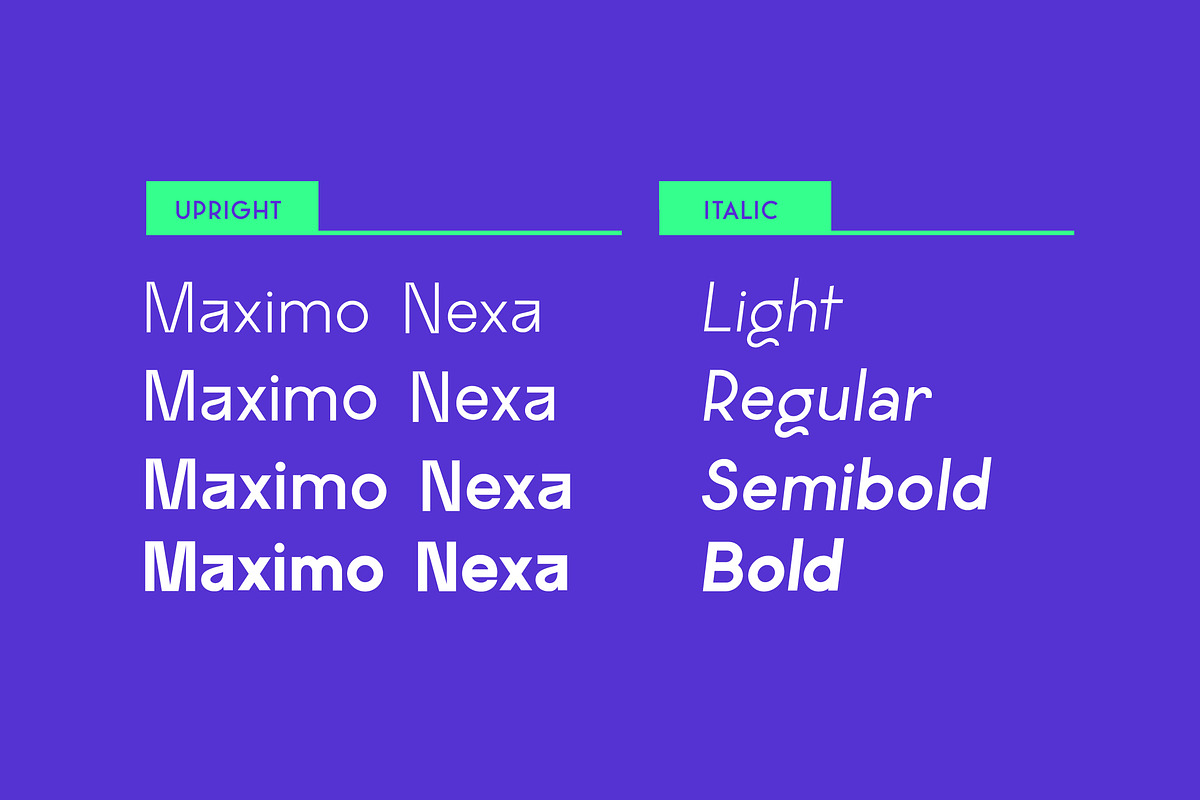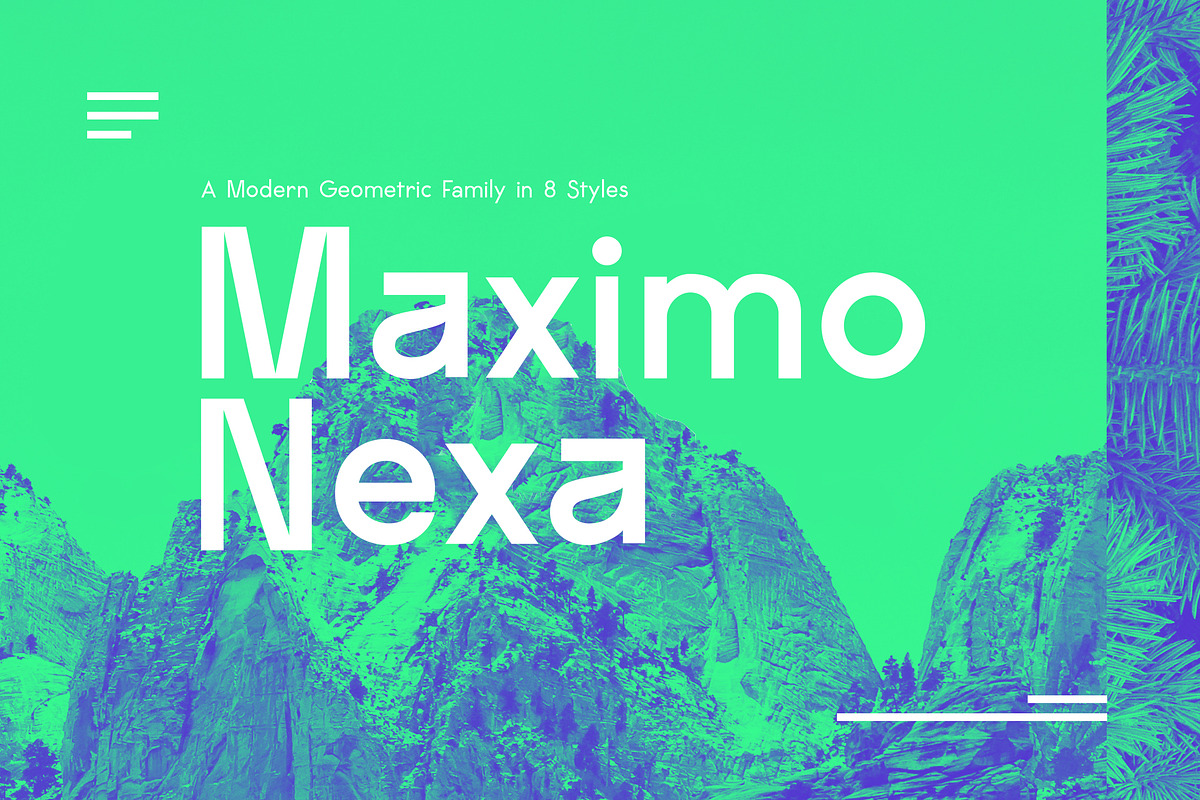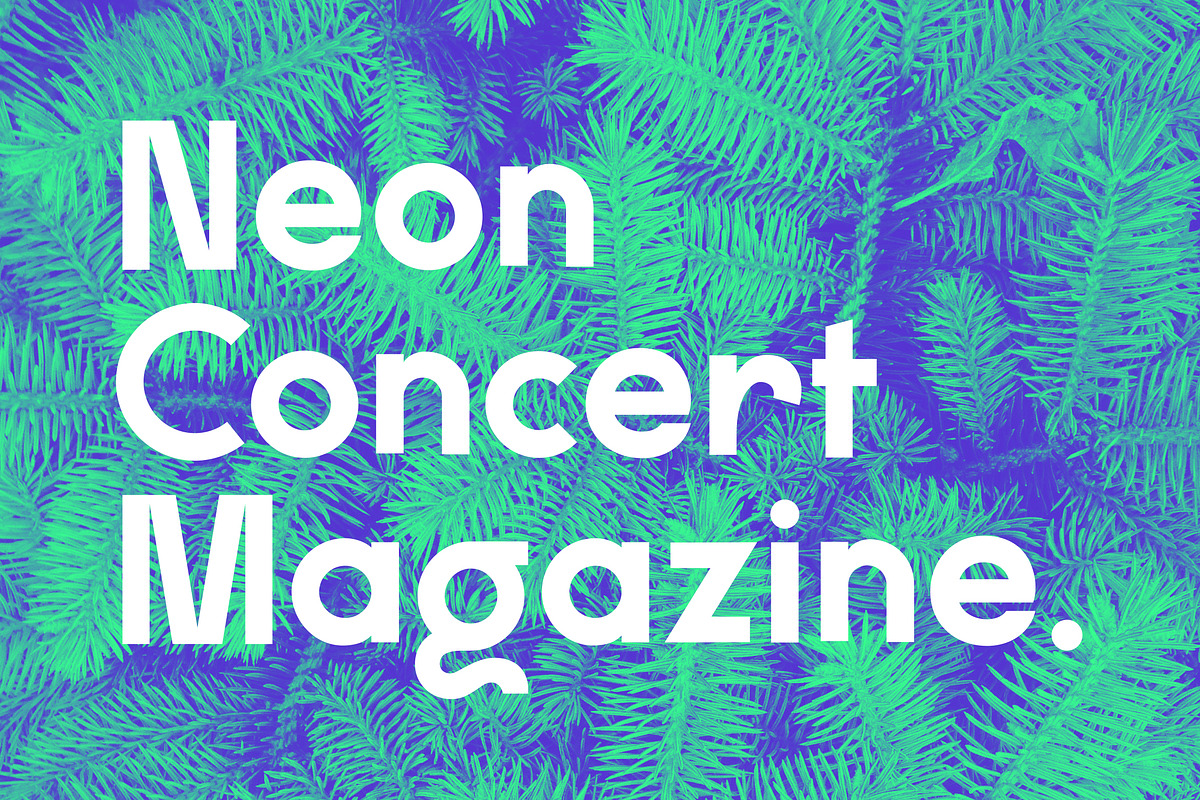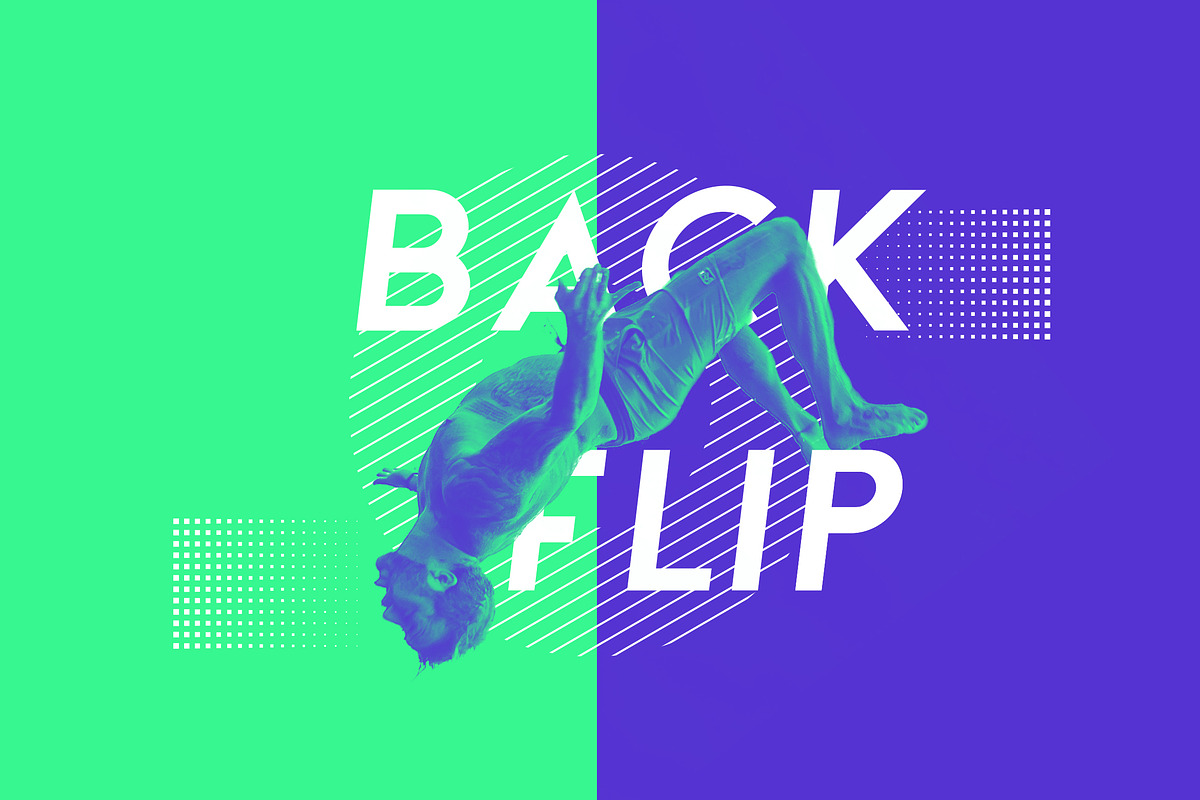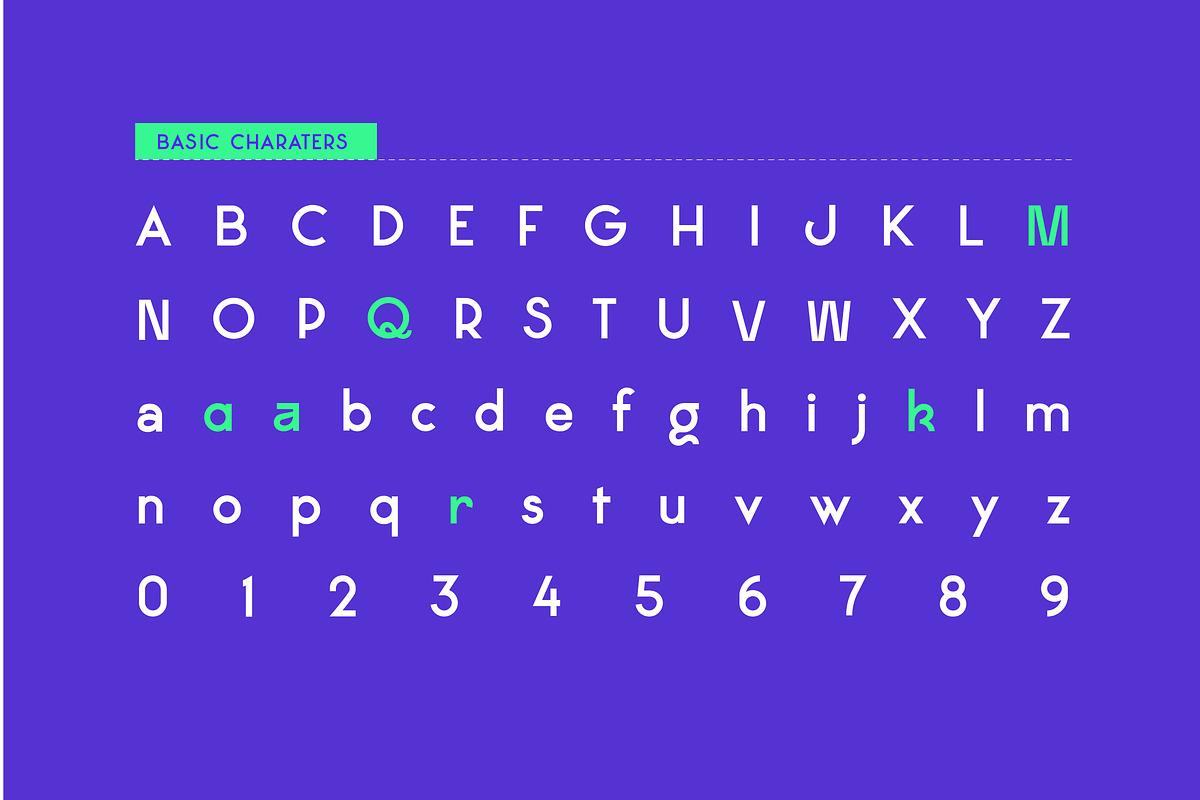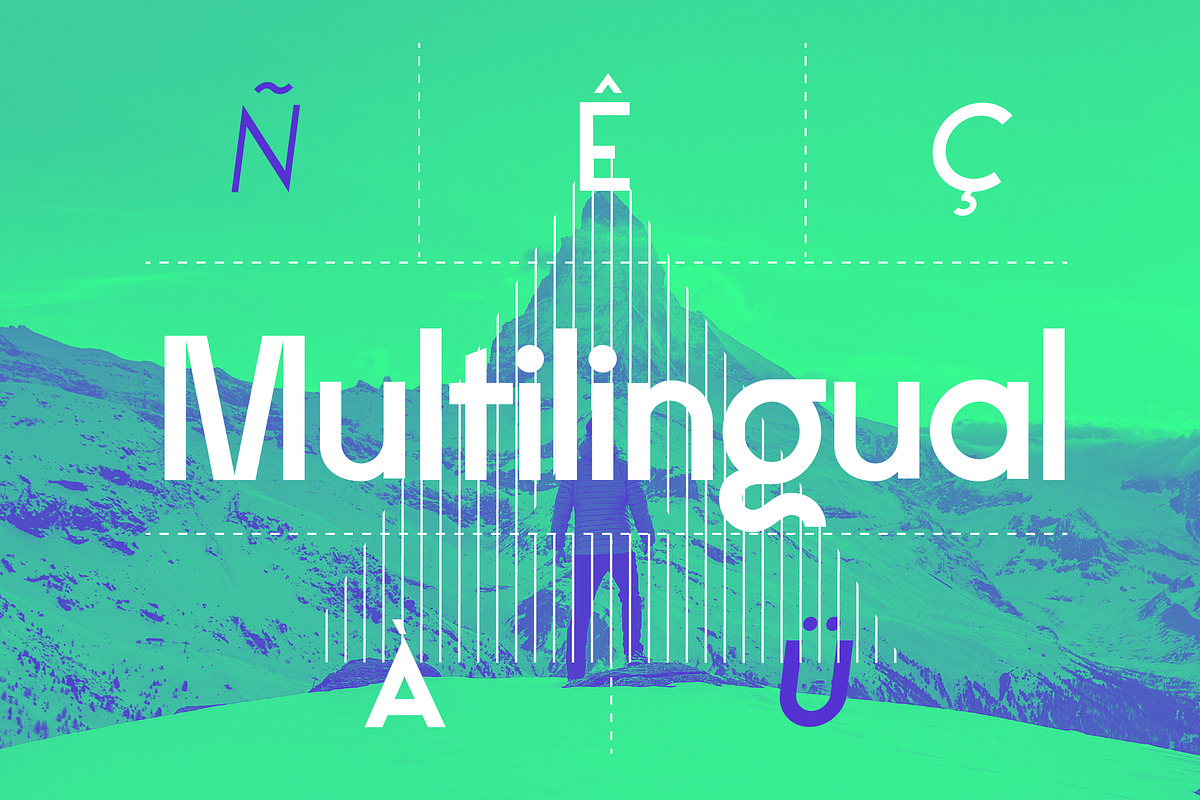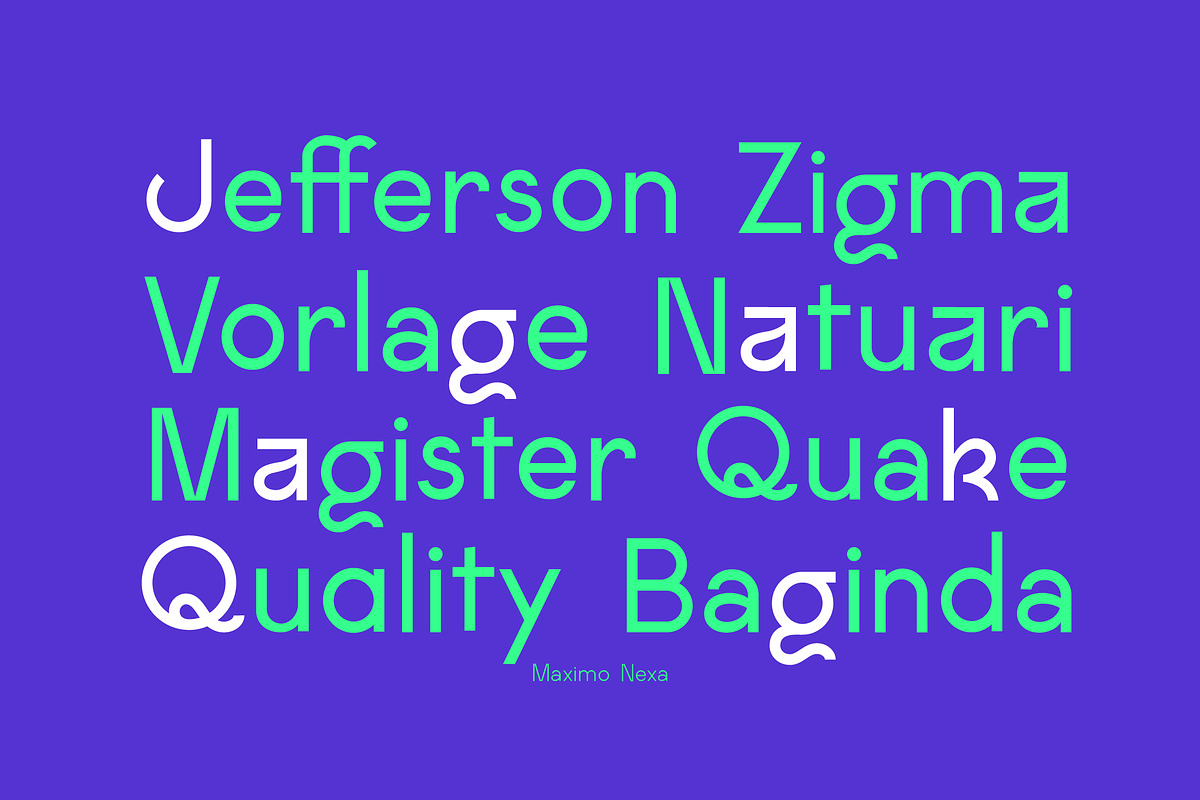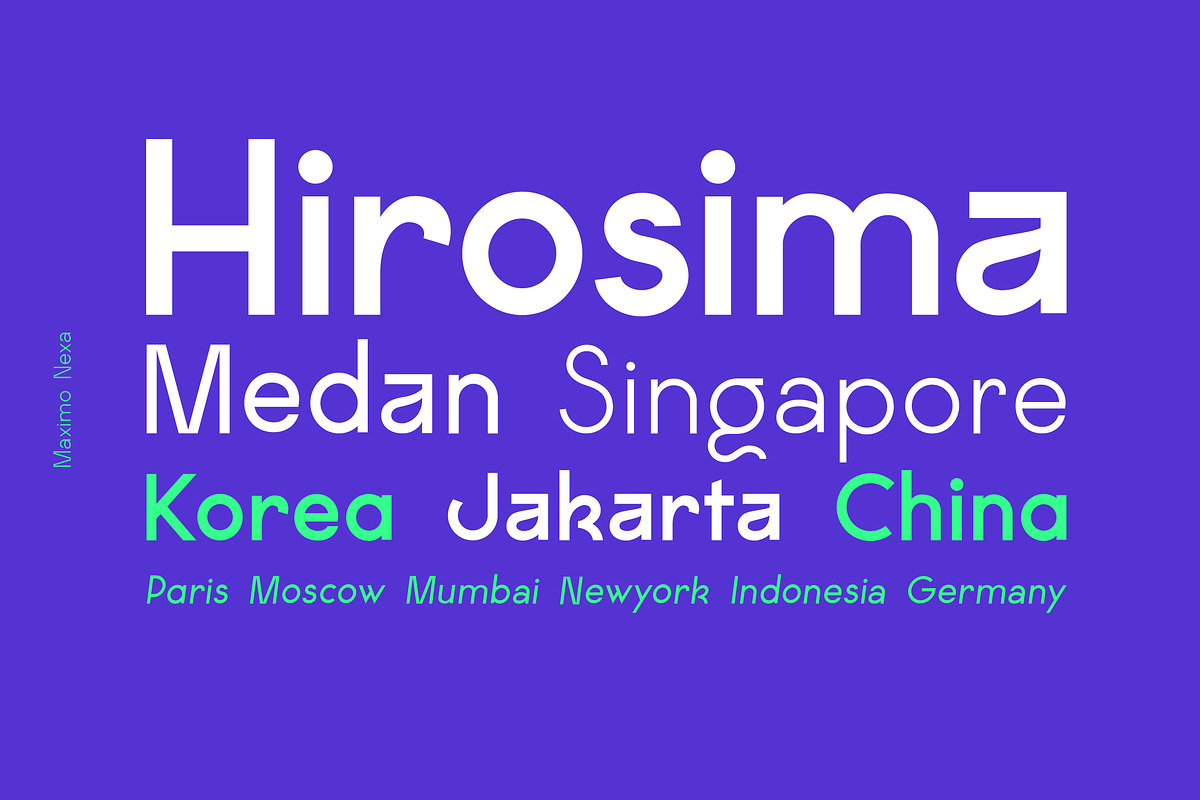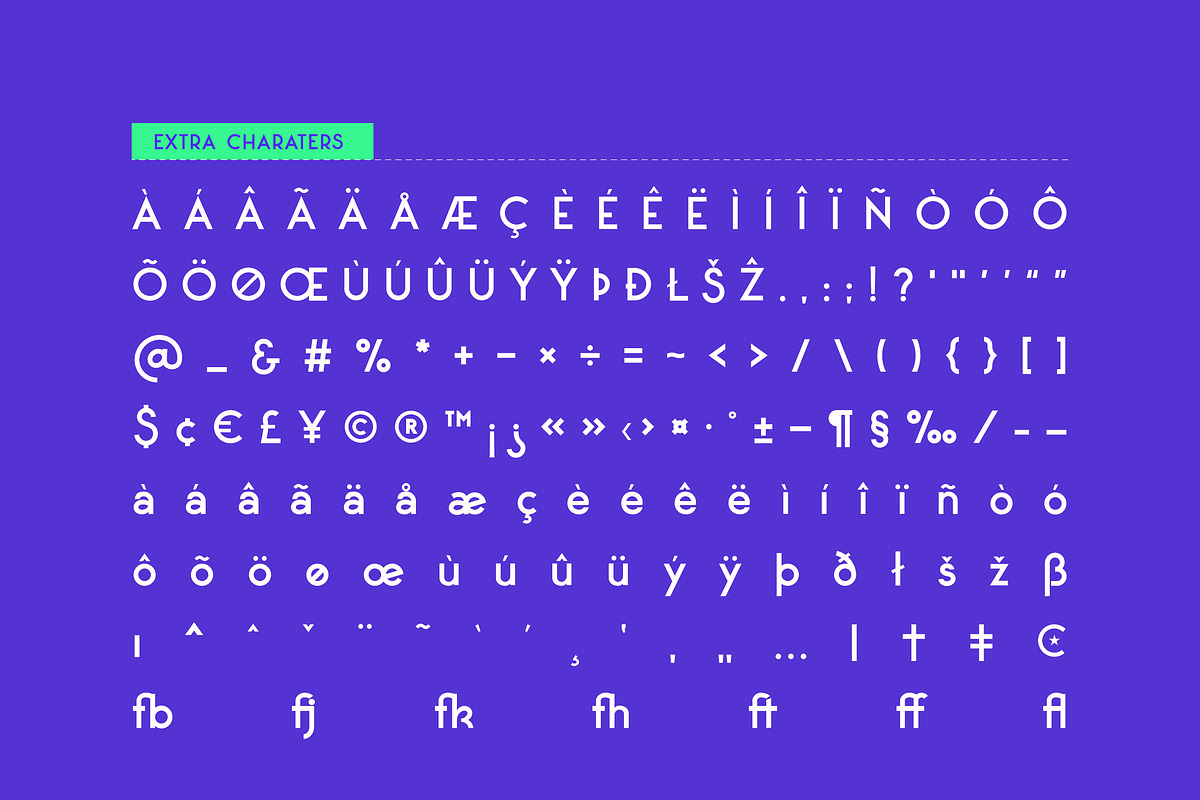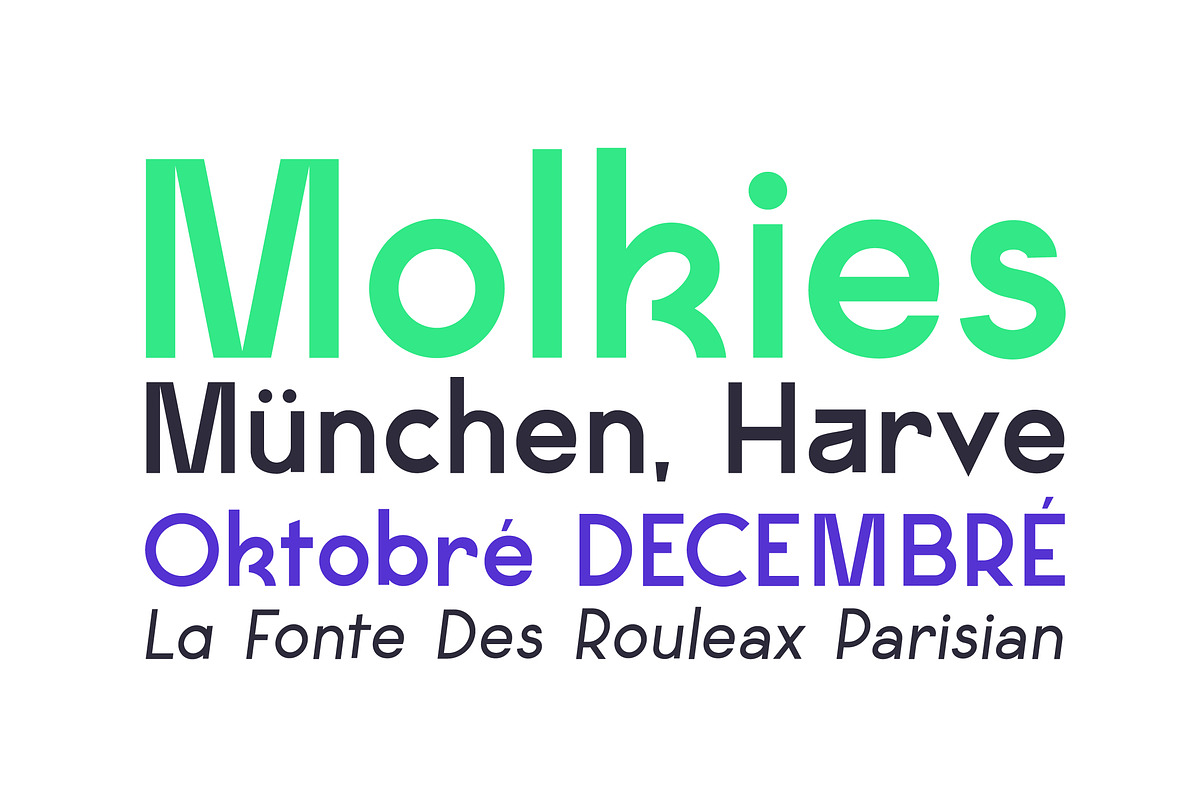
Maximo Nexa
Maximo is an new Dynamic contemporary sans serif font family of 8 fonts. Designed with clean and stylized sporty geometry with harmonious appearance for both texts and headlines. Maximus Sans is perfect companion for branding, editorial and signage, also works great for bigger applications.
Capital + Lowercase letters
Numbers + Punctuation
8 weights [ Light, Light Italic, Regular, Italic, Semi Bold, Semi Bold Italic, Bold, Bold Italic]
Multiple Language supported